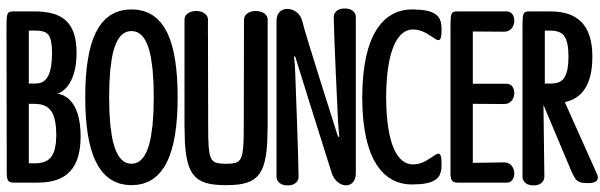
Bouncer
Bouncer is an all-caps font family with automatic interlocks. With soft and rounded look and over 150 automatic ligatures and three weights Bouncer is a flexible and easy to use font. It's very suitable for anything from a Jazz poster to a...